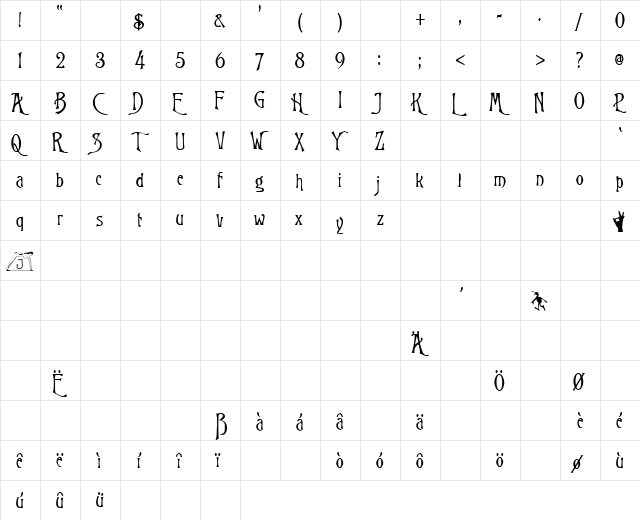
Rugklacht J Cool Font Preview
Rugklacht J Cool
Design Context for Rugklacht J Typeface
Rugklacht J is a composed and adaptable typeface that performs quietly and consistently across a wide range of design contexts.